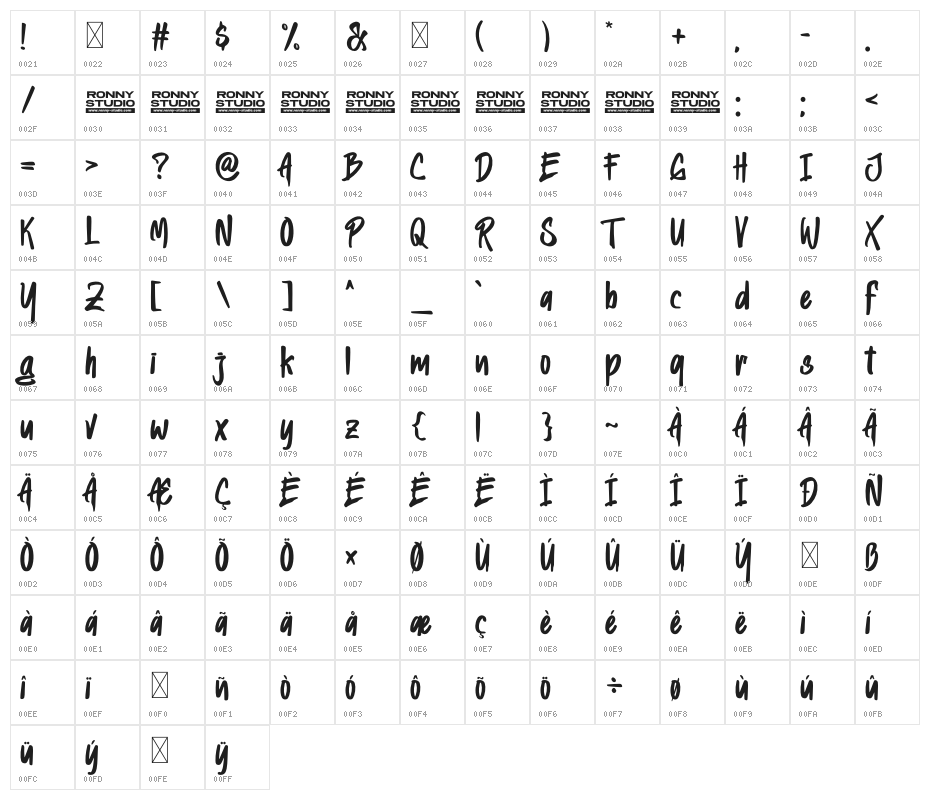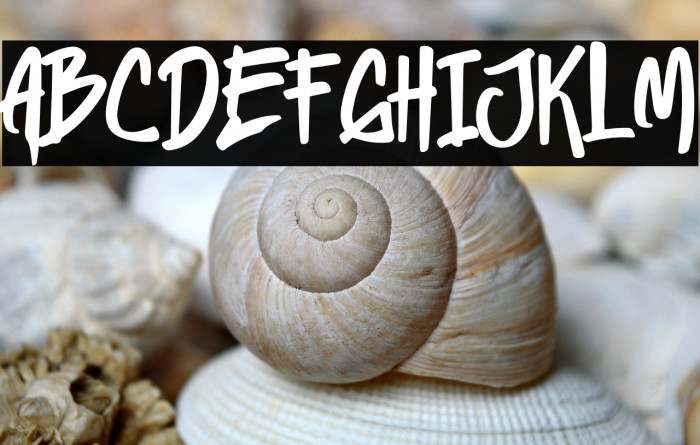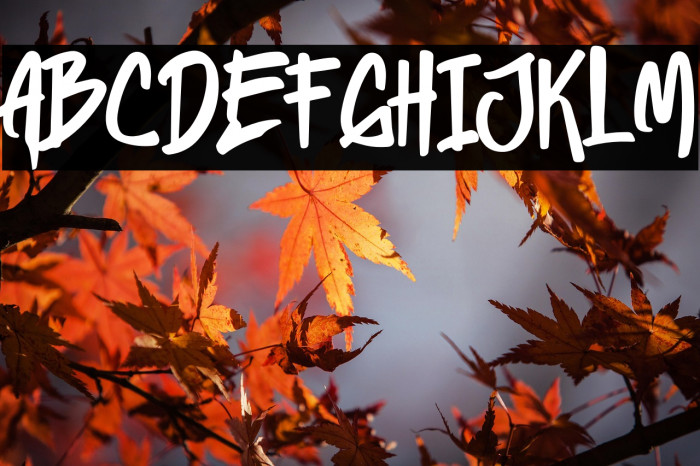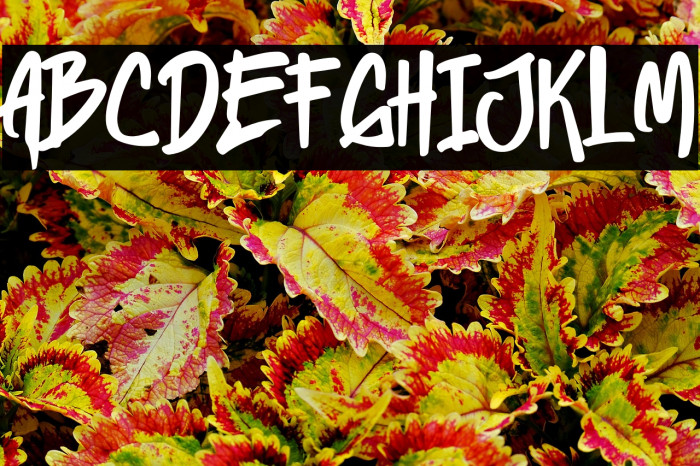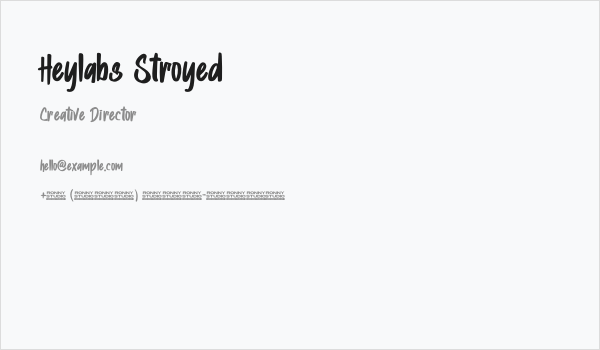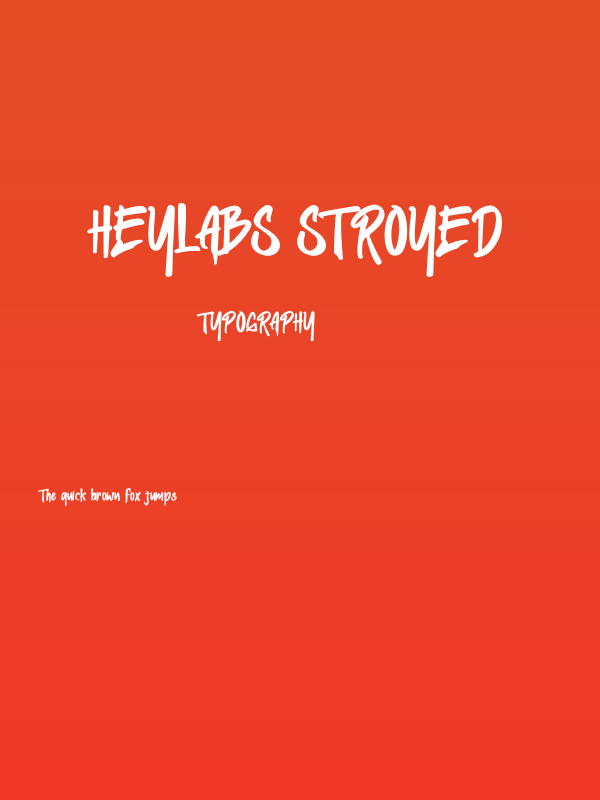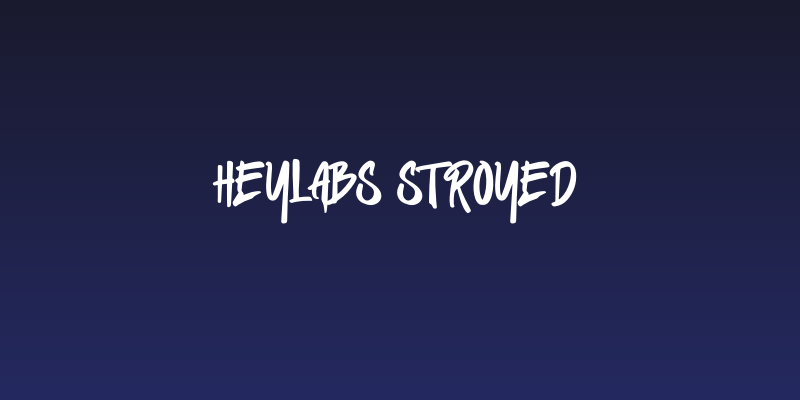
Heylabs Stroyed Font
Heylabs Stroyed Description
This font exhibits a bold and energetic style, characterized by its thick, brush-like strokes that convey a sense of movement and dynamism. The uppercase letters are tall and slightly condensed, while the lowercase letters maintain a consistent flow, enhancing readability. The font's playful and informal appearance makes it suitable for creative and expressive designs. The special characters and numbers are crafted with the same boldness, ensuring uniformity across all elements. Its unique style is ideal for projects that require a personal touch or a handwritten feel.
| Proposed Projects | Ideal for branding, posters, social media graphics, and any project requiring a personal, handwritten touch. |